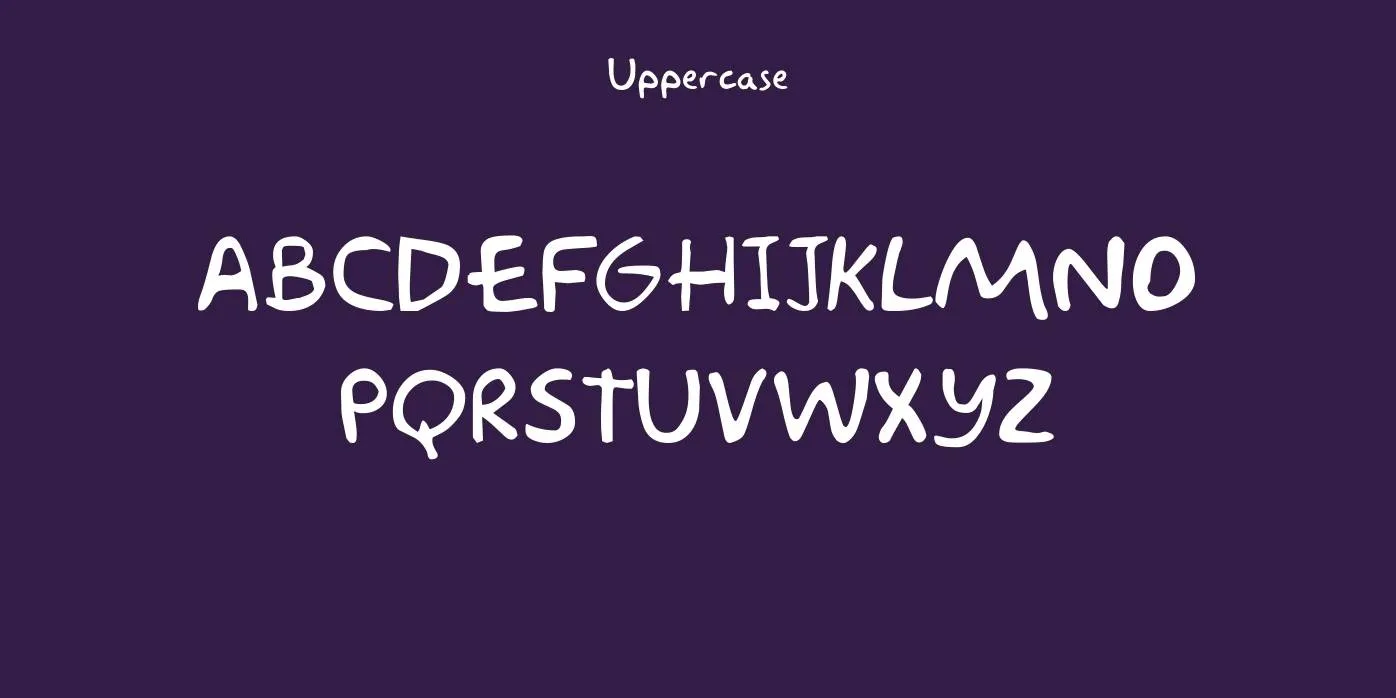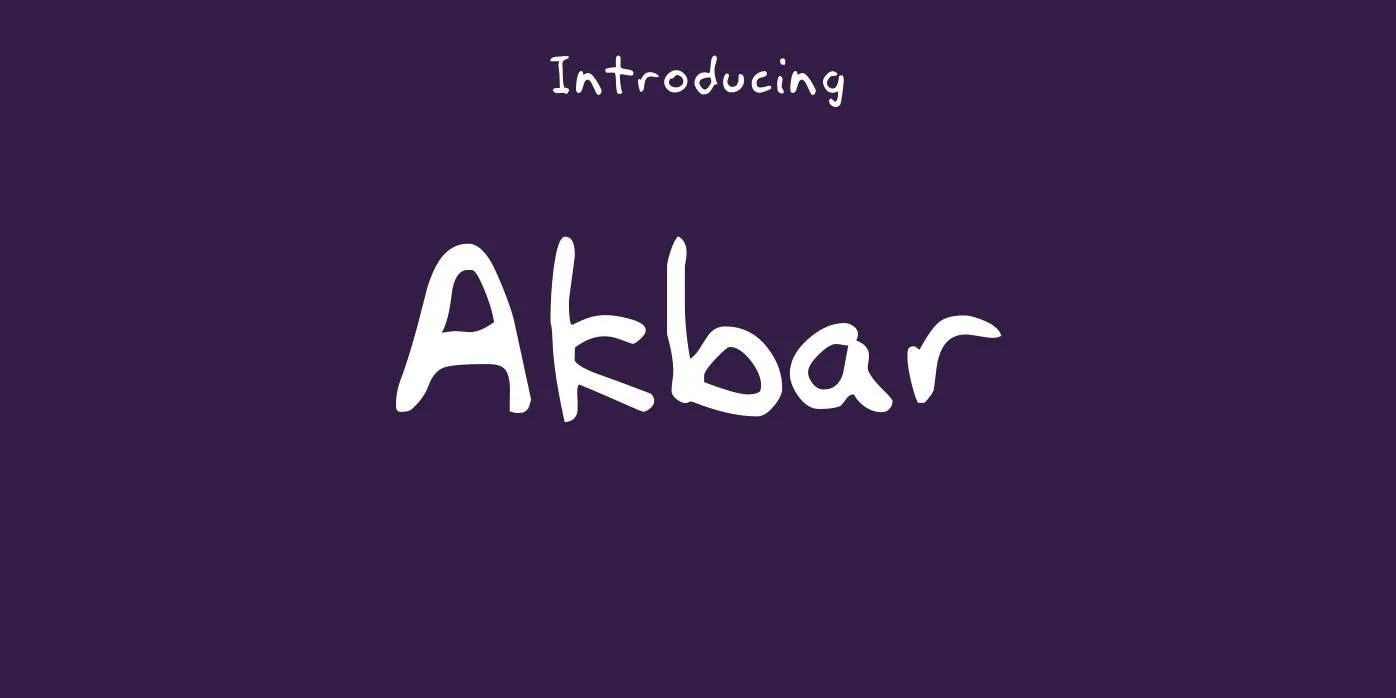
Akbar Font
Akbar font is a famous texture all around the world that was designed by well-known typographic designer Jon Bernhardt. This texture is under the category of the script font family. It has 127 glyphs and 177 characters. These include capital letters, lowercase letters, special characters, punctuation, numbers, and many international characters.
This is the main benefit of using this typeface. It has a wide range of utilization only with simple and classic text.